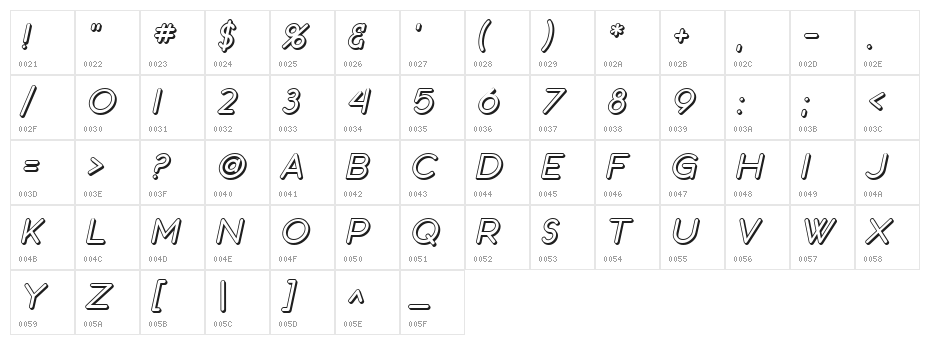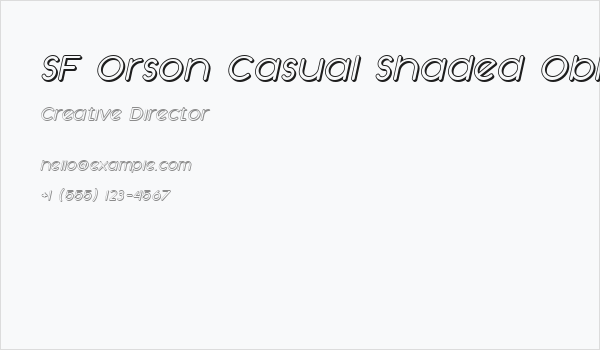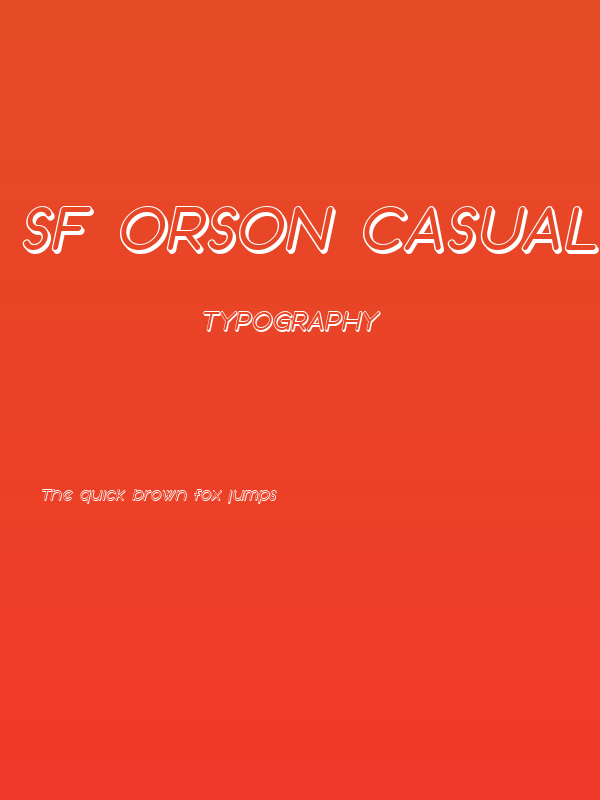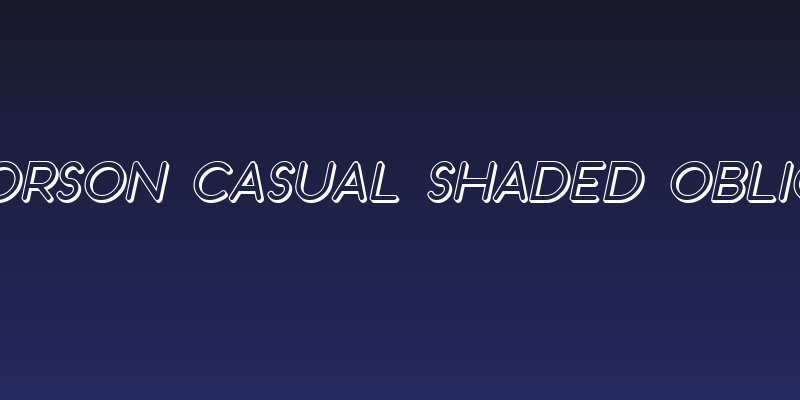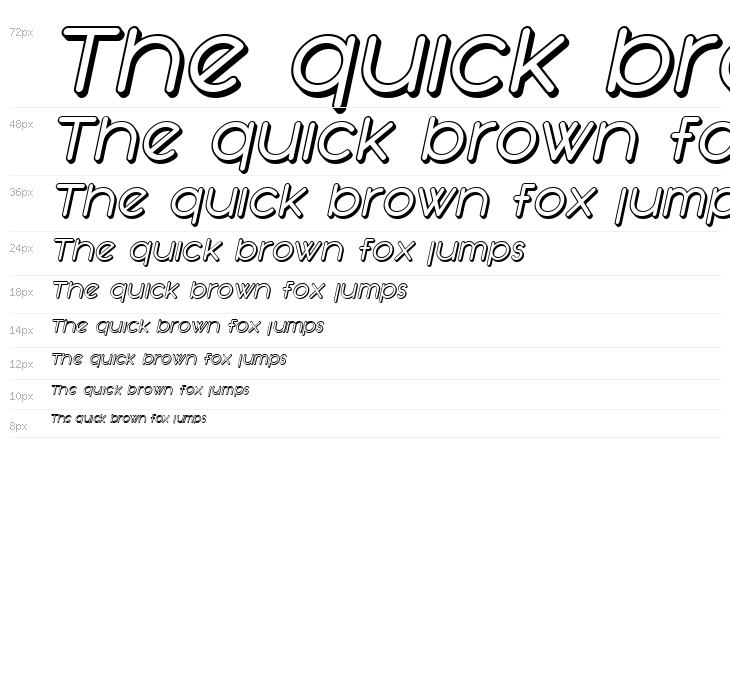
SF Orson Casual Shaded Oblique Font
SF Orson Casual Shaded Oblique Description
This font features a playful and dynamic style with a shaded oblique design. The characters are outlined, giving them a three-dimensional effect that adds depth and interest. The uppercase and lowercase letters maintain a consistent style, with smooth curves and clean lines. The numerals and special characters are equally well-designed, ensuring versatility across different uses. The font's casual and relaxed appearance makes it suitable for projects that require a fun and engaging look.
| Overall Style | Casual, Fun |
| Proposed Projects | Ideal for posters, children's books, playful branding, and creative digital content. |